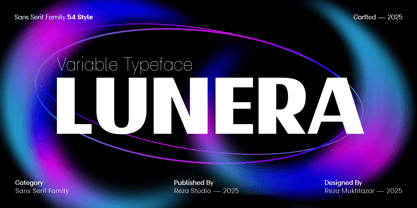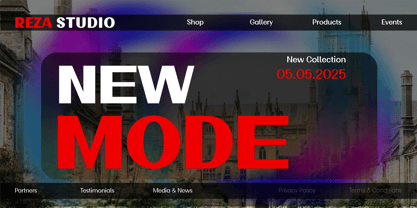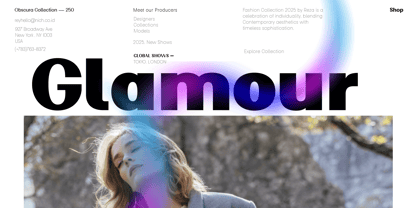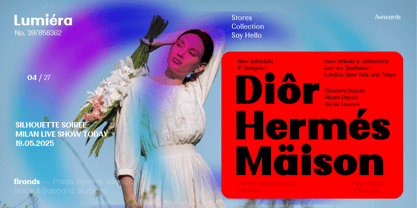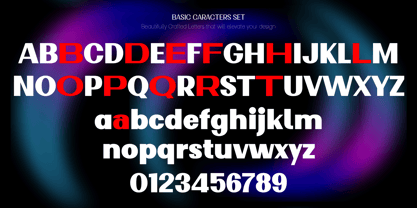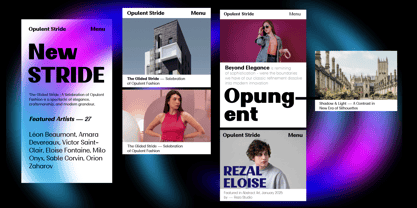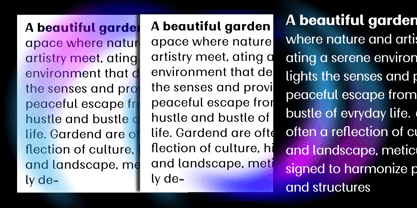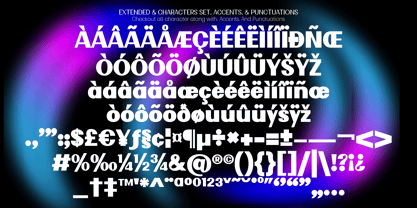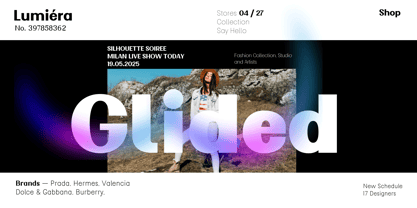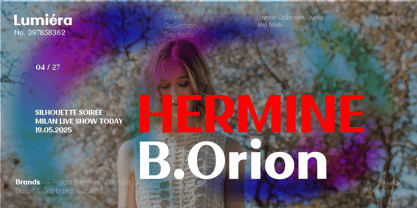
Lunera
by Rezastudio
The Lunera Font Family was designed by Reza Mukhtazar and published by Rezastudio. Lunera contains 54 styles and family package options.
Lunera is a contemporary sans serif variable typeface with a striking geometric structure and modern appeal. Crafted with precision in 2025, Lunera offers 54 versatile styles, giving designers maximum flexibility for branding, editorial design, web interfaces, UI/UX, and display use.
With clean lines, balanced proportions, and smooth curves, Lunera adapts seamlessly from minimalist elegance to bold impact. As a variable font, it enables fluid transitions across weight and width axes—perfect for responsive layouts and dynamic typography.
Whether you're designing tech interfaces or bold editorial layouts, Lunera is engineered to deliver clarity, performance, and style across all media.
Key Features:
- 54 styles
- Modern geometric sans serif
- Perfect for branding, UI/UX, editorial, and display
Multi-language support
Designed by Reza Mukhtazar | Published by Reza Studio, 2025